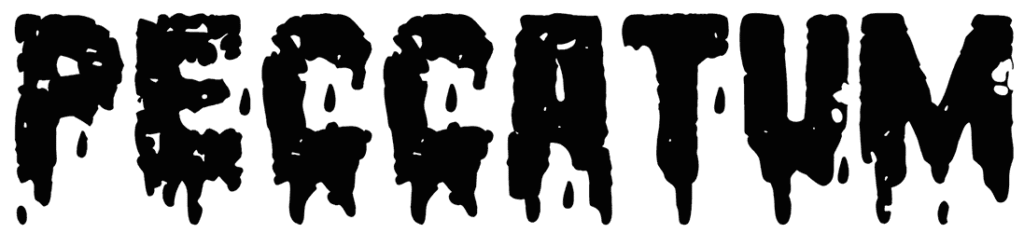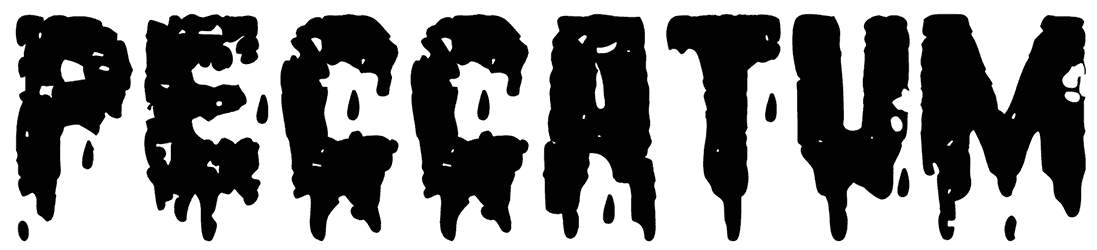
Peccatum Font
Peccatum is a versatile gem that not only looks amazing on spooky themes but is also great on music and sports concepts. This dripping font is inspired by the headlines of newspaper events and has bold irregularities that compensate well for the lack of small letters. The irregular geometric shapes of this splatter font make it versatile enough to be used outside of horror themes.